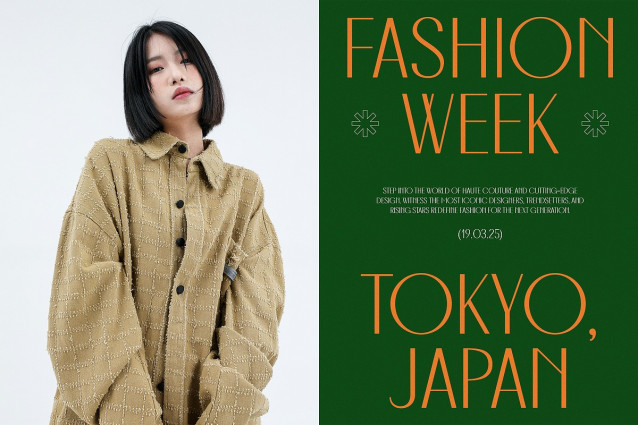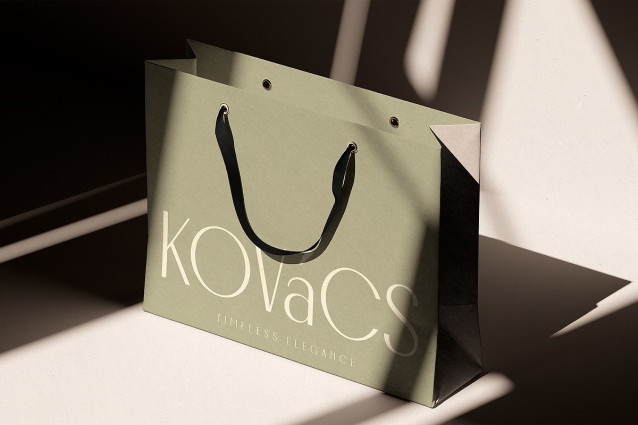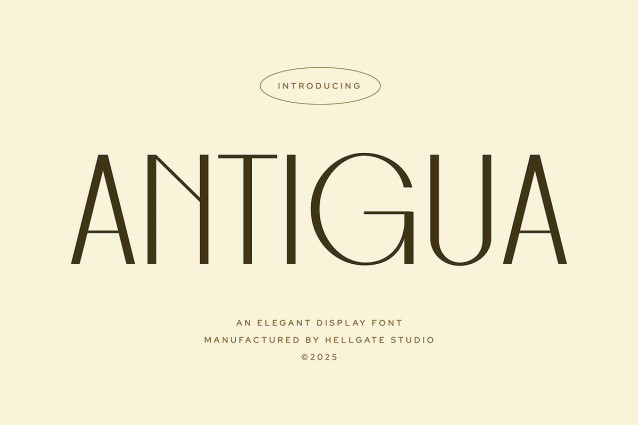
Antigua Font
Antigua Font, a typeface beaming with timeless elegance and sophisticated flair. This gracefully crafted font stands out due to its sleek charm and beautiful aesthetic. It’s delightfully easy to tweak the text color and make it integrate seamlessly with your visual theme.
This high-quality, rendered OTF file ensures clean and sharp output every time. The Antigua Elegant Font is perfect for any projects that demand an aura of refined elegance.